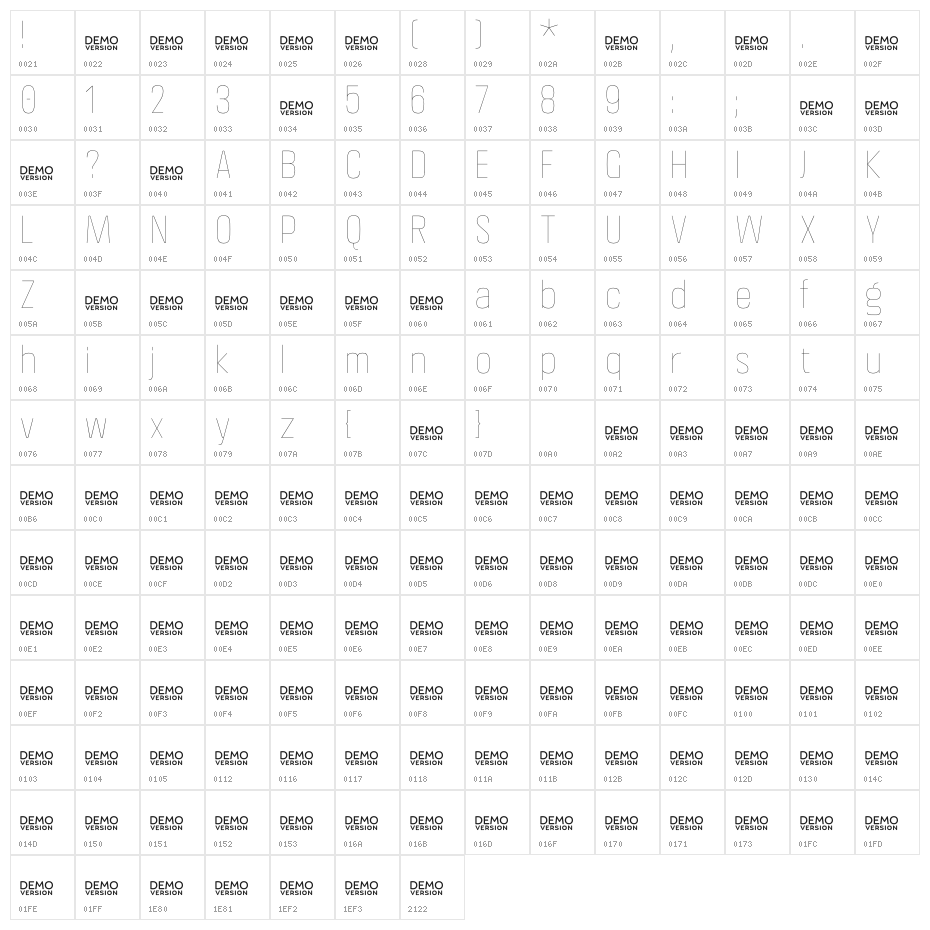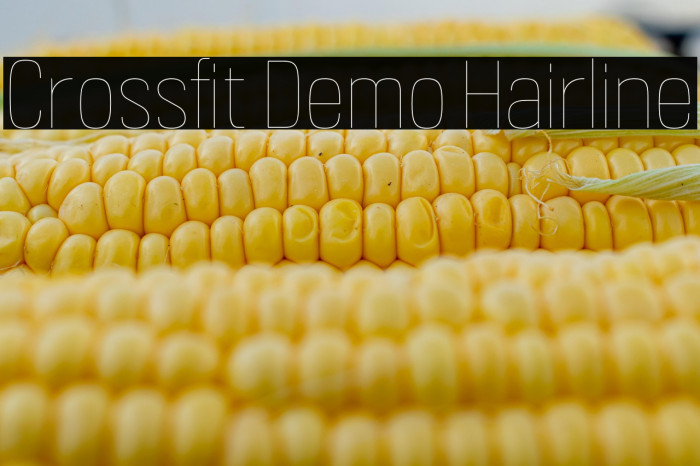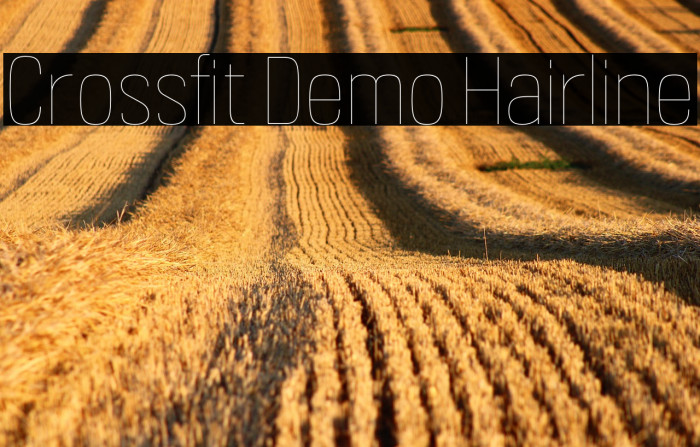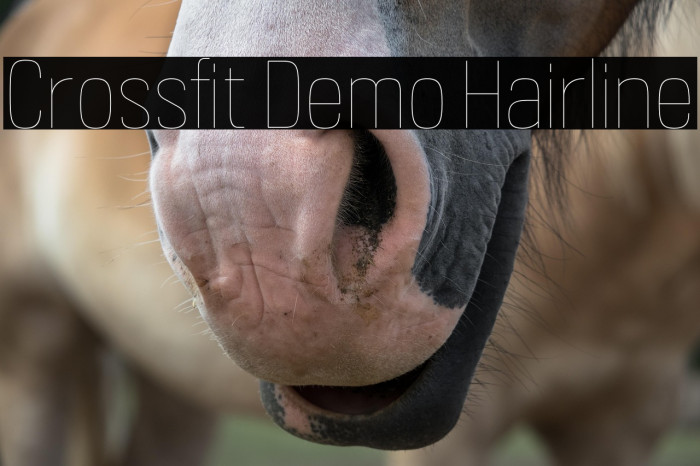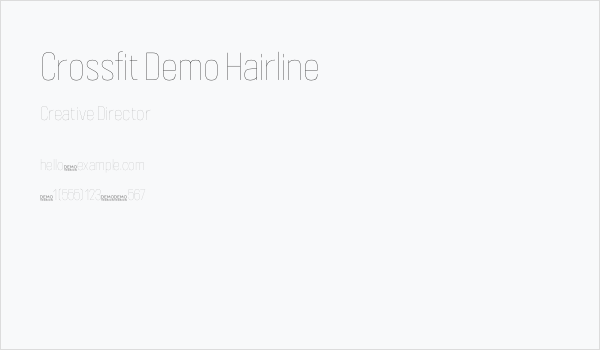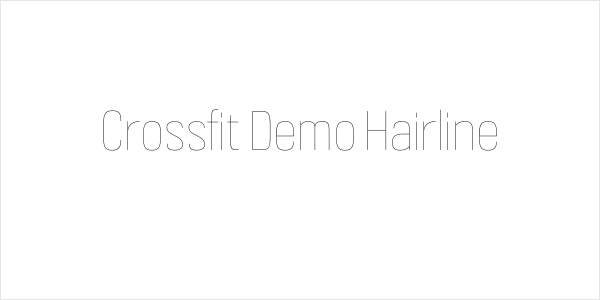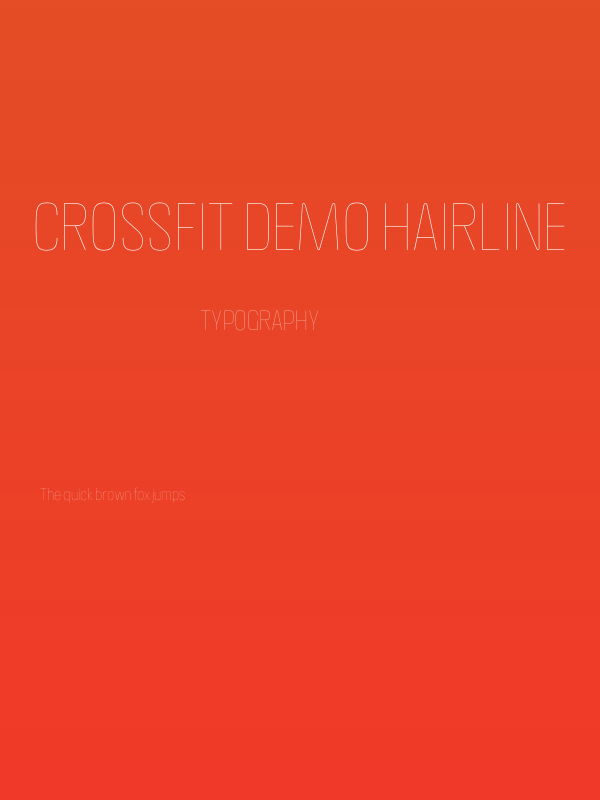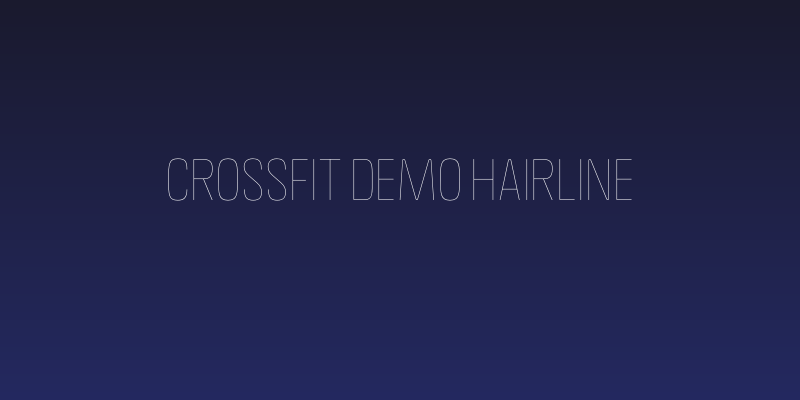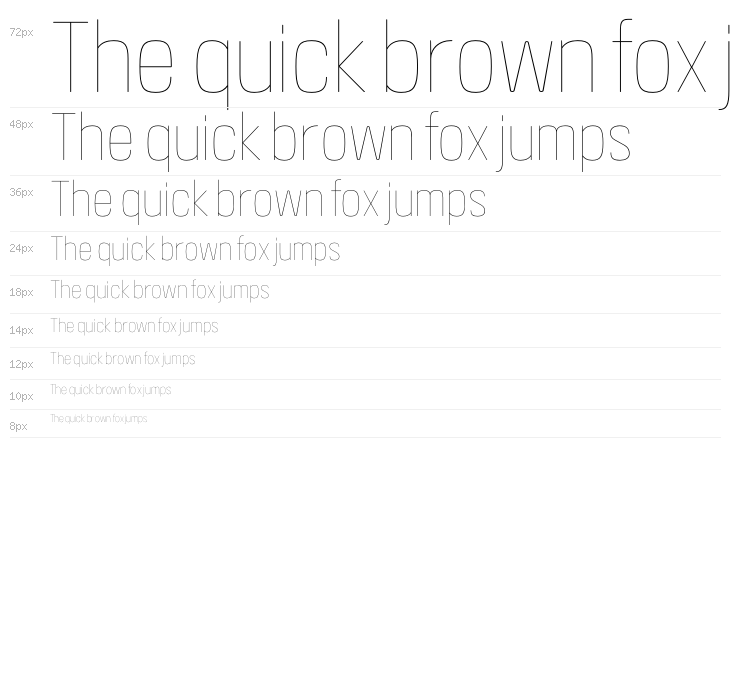
Crossfit Demo Hairline Font
Crossfit Demo Hairline Description
This font features a sleek and modern design with ultra-thin lines, giving it a minimalist and contemporary appearance. The characters are clean and geometric, with a consistent stroke width that emphasizes precision and clarity. The uppercase and lowercase letters are well-proportioned, maintaining a harmonious balance throughout the alphabet. The numerals are equally refined, matching the overall aesthetic of the font. Special characters are included, maintaining the same thin, elegant style. This font is ideal for projects that require a sophisticated and understated look, making it suitable for both digital and print media.
| Use Case | Headlines, Logos, Editorial design |
| Proposed Projects | Ideal for branding, editorial design, fashion magazines, modern websites, and minimalist posters. |